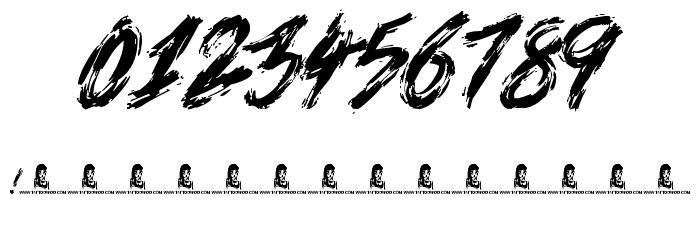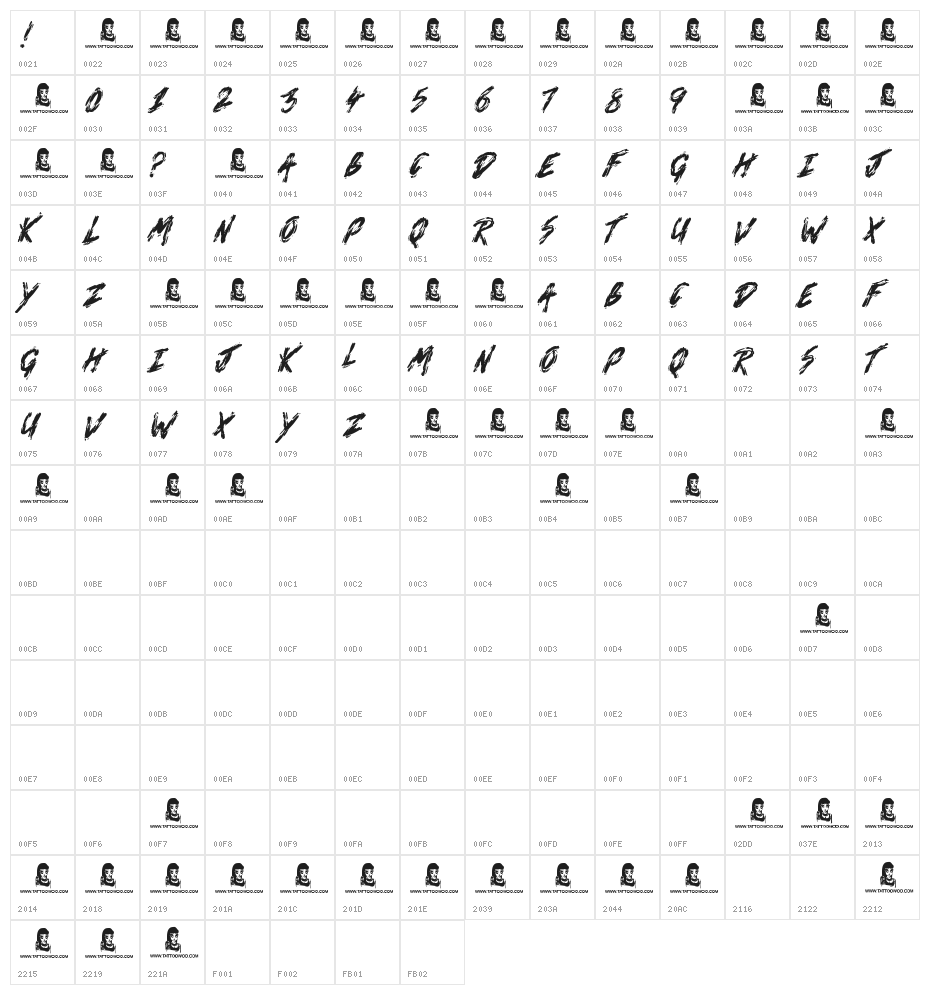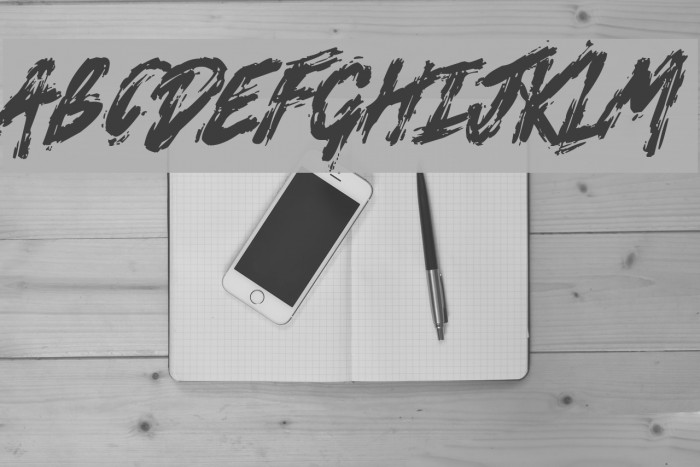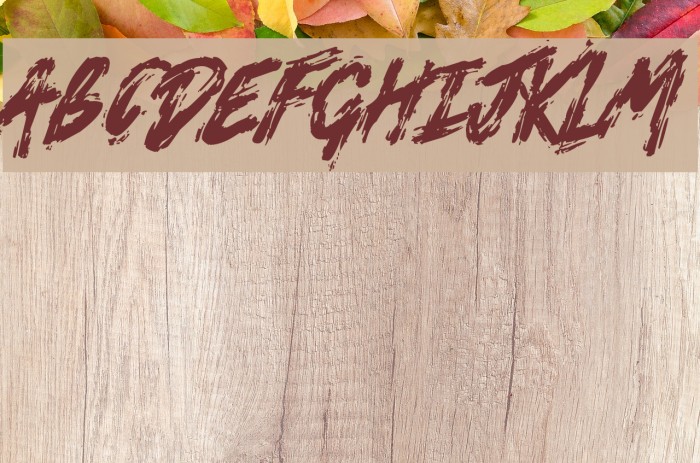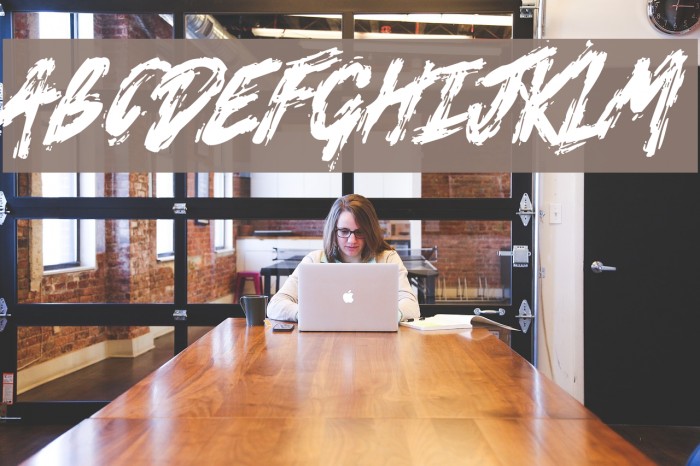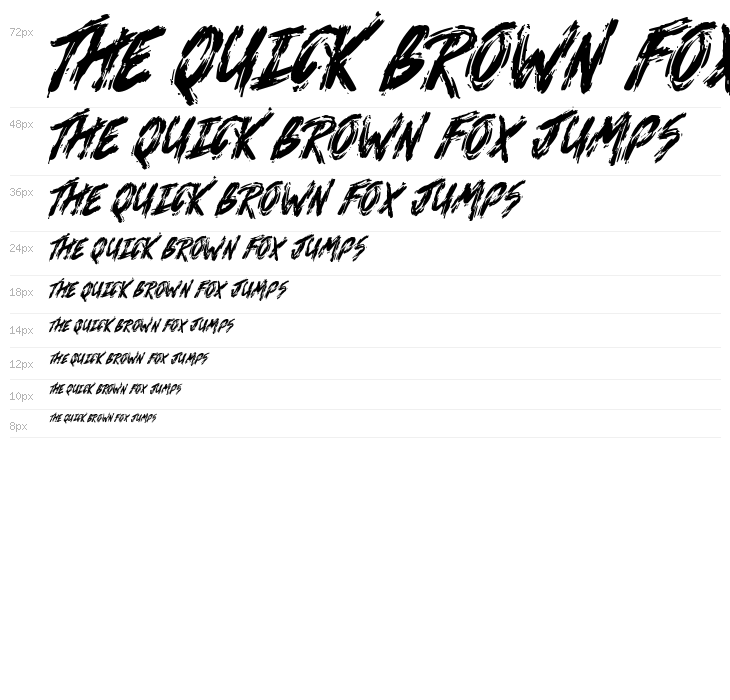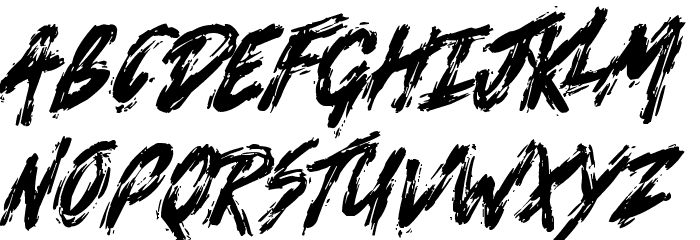
Death Valley Font
Death Valley Description
This font exhibits a bold, brushstroke style that conveys a sense of raw energy and dynamic movement. Each character is crafted with a rough, textured appearance, reminiscent of hand-painted lettering. The strokes are thick and uneven, giving the font a rugged and edgy feel. This style is perfect for projects that require a strong, impactful visual presence. The uppercase and lowercase letters maintain a consistent style, while the numerals and special characters complement the overall aesthetic. The font's design is ideal for creating eye-catching headlines or artistic designs.
| Proposed Projects | Ideal for posters, album covers, branding, and any design needing a bold, artistic touch. |